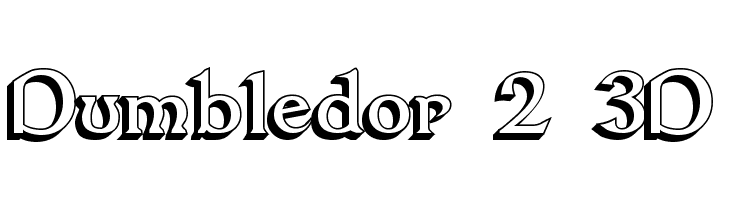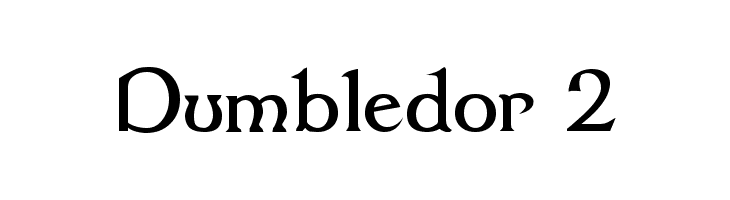
A medieval-inspired font with sharp serifs and elegant curves.
A bold, 3D serif font with dramatic, angular serifs and a vintage flair.
A decorative font with a cut-out pattern, offering a modern yet vintage charm.
A modern, cut-up style font with high contrast and bold, artistic flair.
An elegant and dynamic italic font with smooth, flowing letterforms and moderate contrast.
An outlined, decorative font with a medieval-inspired style and sharp, angular serifs.
A whimsical, decorative font with a medieval flair and italic slant.
A bold, shadowed font with a vintage and dramatic style.
A decorative serif font with a classic yet whimsical style, featuring sharp serifs and elegant curves.
A bold, medieval-inspired serif font with sharp, angular serifs and dramatic flair.